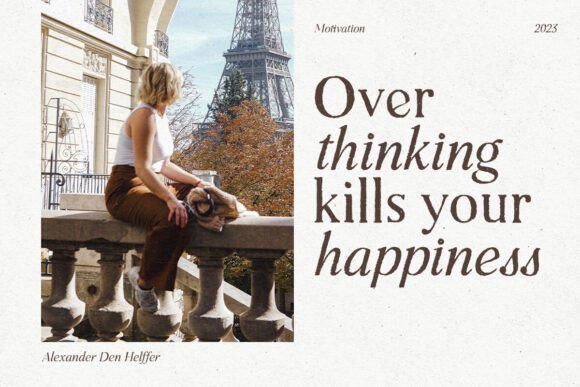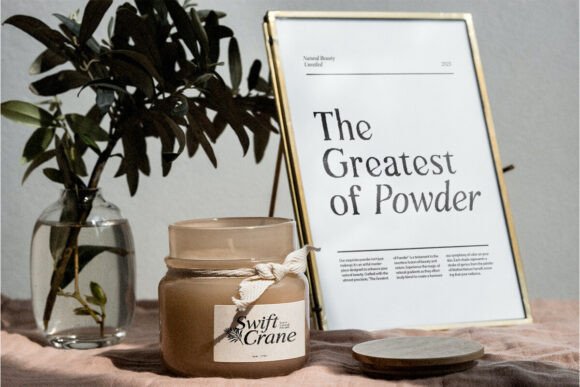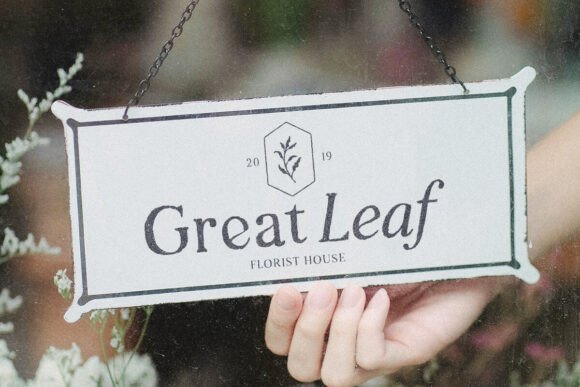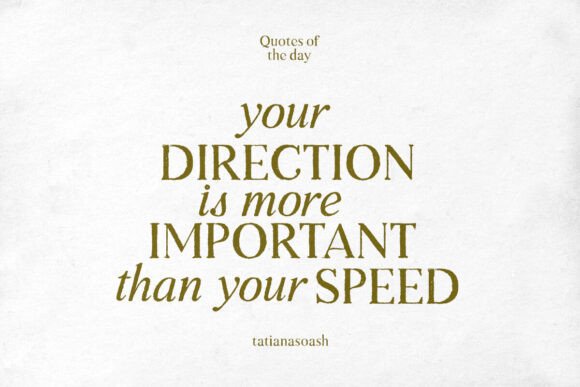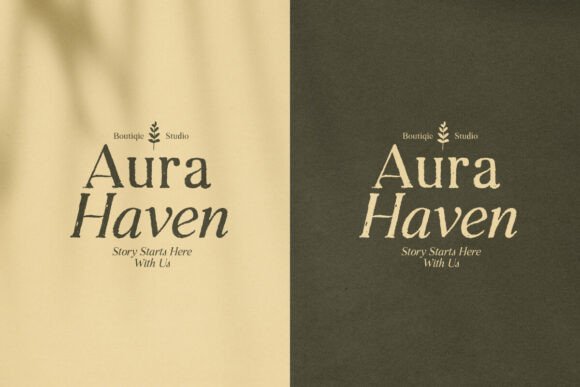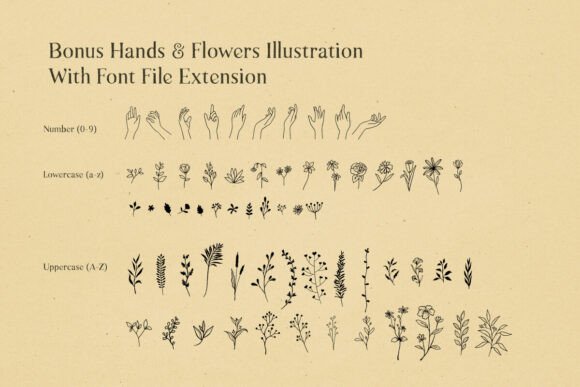
Introduction to Natural Comforts Font
Have you ever sat down with a blank page and a spark of inspiration, only to struggle finding the perfect font to bring your creative vision to life? I’m sure many of us have been there. But what if you stumbled upon a design resource that not only captures the essence of your imagination but also adds a touch of elegance and sophistication to your project?
Enter the Natural Comforts Font, a stunning hand-lettered serif family that’s perfect for any occasion, from quotes and posters to branding and wedding invitations. With its beautiful hands and flowers illustrations, this font is sure to elevate your design game and make your creative project truly special.
Key Features of Natural Comforts Font
- Unique characteristics include a natural, handwritten feel and subtle texture
Honest Review: Natural Comforts Font
As a designer, I’m always on the lookout for high-quality design resources that can elevate my creative projects. Recently, I stumbled upon the Natural Comforts Font, and I’m excited to share my honest review.
- The font has a clean and modern aesthetic, making it perfect for a wide range of creative projects.
- The font is highly customizable, with a range of weights and styles to choose from.
- The Natural Comforts Font may not be suitable for projects that require a more rustic or distressed look.
- The font’s legibility may be compromised at smaller font sizes.
Overall, I’m impressed with the Natural Comforts Font. It’s a high-quality design resource that’s perfect for designers working on a variety of creative projects. While it may have some limitations, I believe it’s well worth the free download.
Getting the Most Out of Natural Comforts Font
To get the most out of the Natural Comforts Font, experiment with different font sizes, colors, and combinations. This font is highly versatile and can be used for a variety of creative projects, from graphic design to typography.
The Natural Comforts Font is commonly used for branding, packaging design, and website design. Its unique and elegant style makes it an ideal choice for businesses and individuals looking to create a professional and sophisticated visual identity.